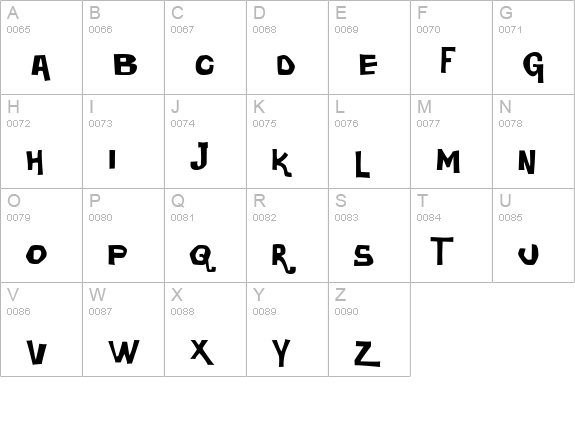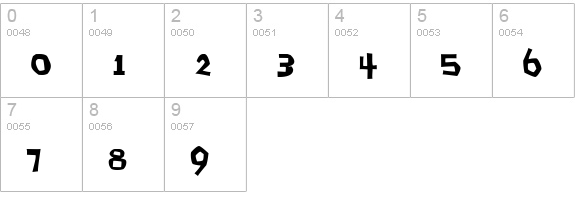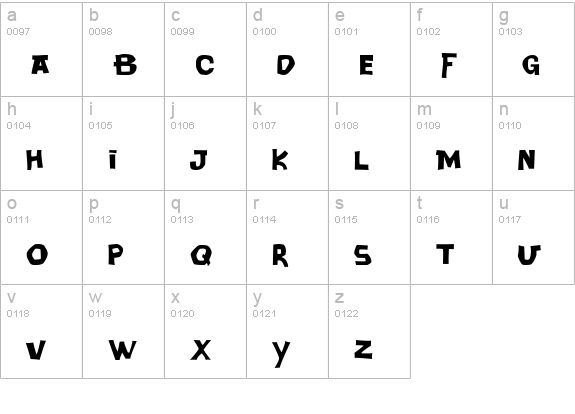
P22 DaddyO Square Font Details
P22 DaddyO Square font is a stylish and versatile typeface that effortlessly captures the essence of the 1950s and 1960s retro aesthetic. This font is a perfect blend of sleek lines and bold shapes, making it a great choice for a variety of design projects. With its distinct square letterforms and playful curves, P22 DaddyO Square font adds a touch of vintage charm to any design. Whether you're working on a poster, logo, or website, this font will instantly transport your audience back to the golden age of mid-century design. One of the best things about P22 DaddyO Square font is that it is free to download at FontsMarket.com. This means that you can easily access and use this font in your projects without any cost. It's a fantastic opportunity to enhance your designs with a high-quality typeface that perfectly captures the spirit of a bygone era. The versatility of P22 DaddyO Square font is truly remarkable. Its clean and bold appearance makes it suitable for both headline and body text, allowing you to create cohesive and visually appealing designs. Whether you're aiming for a retro-inspired look or a modern twist on a classic style, this font has got you covered. The attention to detail in P22 DaddyO Square font is evident in every character. The precise angles and carefully crafted curves give each letter a unique personality, ensuring that your text stands out and grabs the viewer's attention. This font is a true testament to the craftsmanship and artistry of typography. Don't miss out on the opportunity to add P22 DaddyO Square font to your collection. Download it for free at FontsMarket.com and start creating stunning designs that effortlessly blend nostalgia with contemporary style. This font is a must-have for designers looking to evoke a sense of retro coolness and timeless elegance.